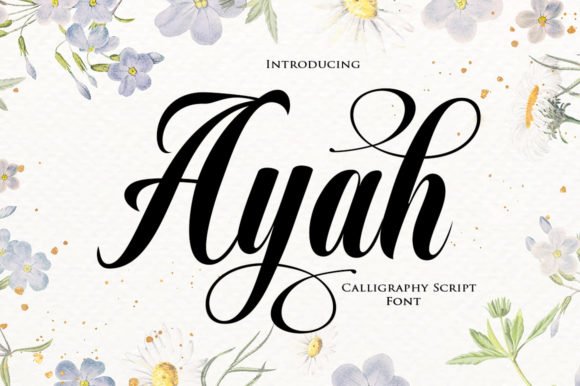
Introduction to Ayah Font
Ayah is a beautiful and refined script font.
It has a classy, elegant and modern look that can be used for a variety of formal and informal designs Ayah is PUA encoded which means you can access all of the glyphs and swashes with ease.
Key Features of Ayah Font